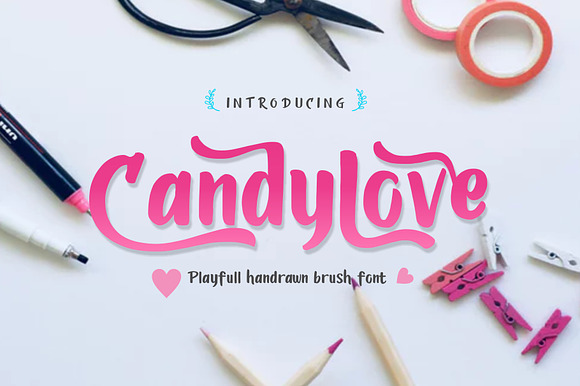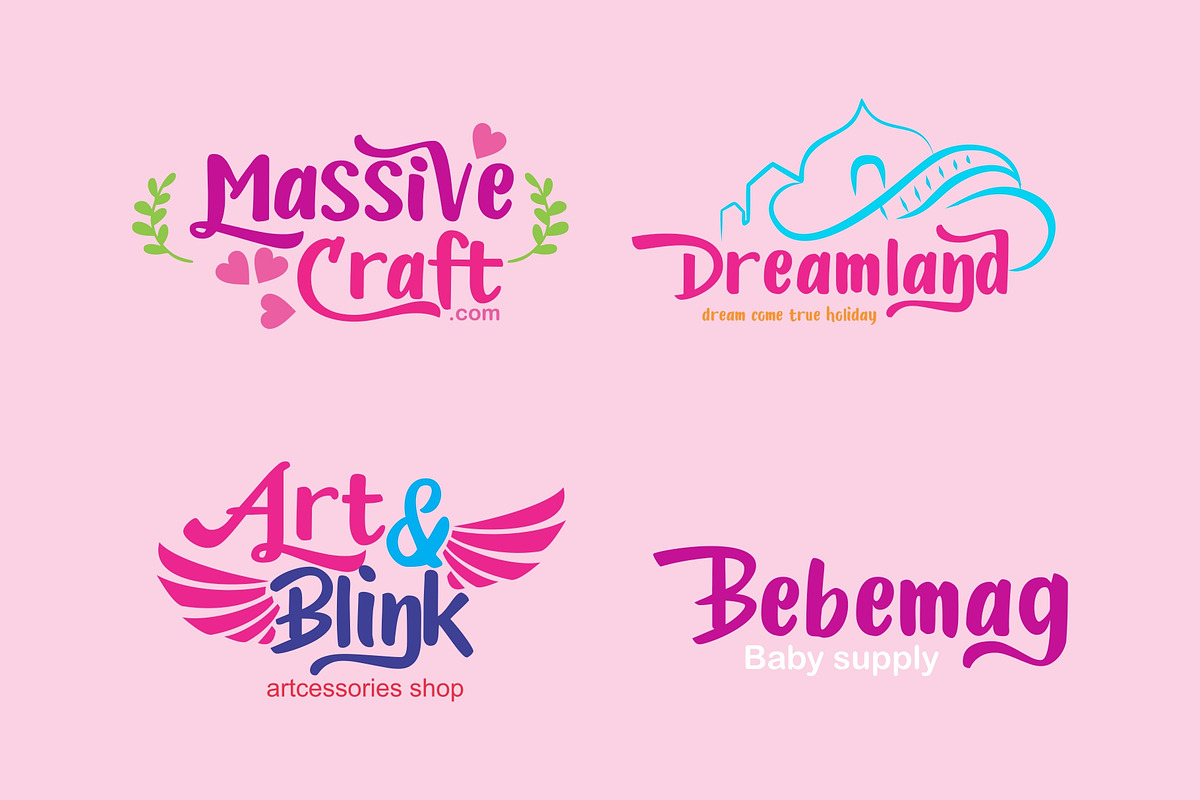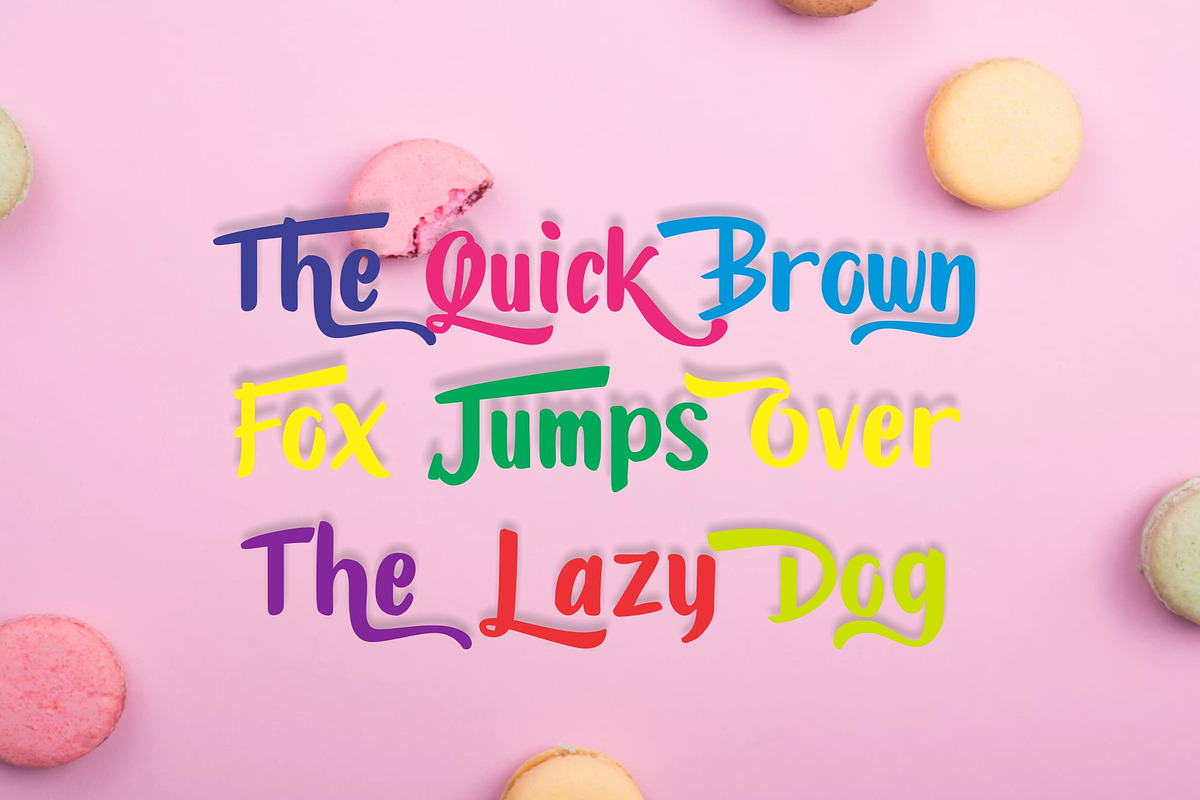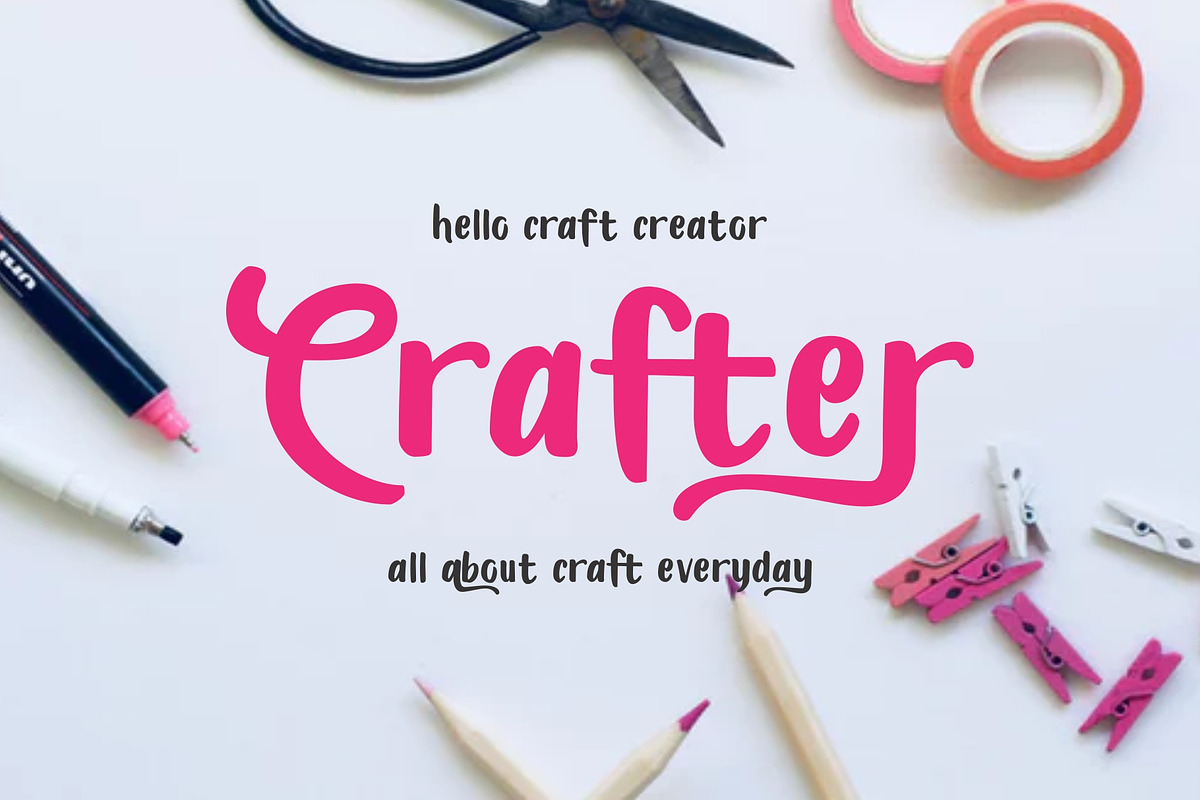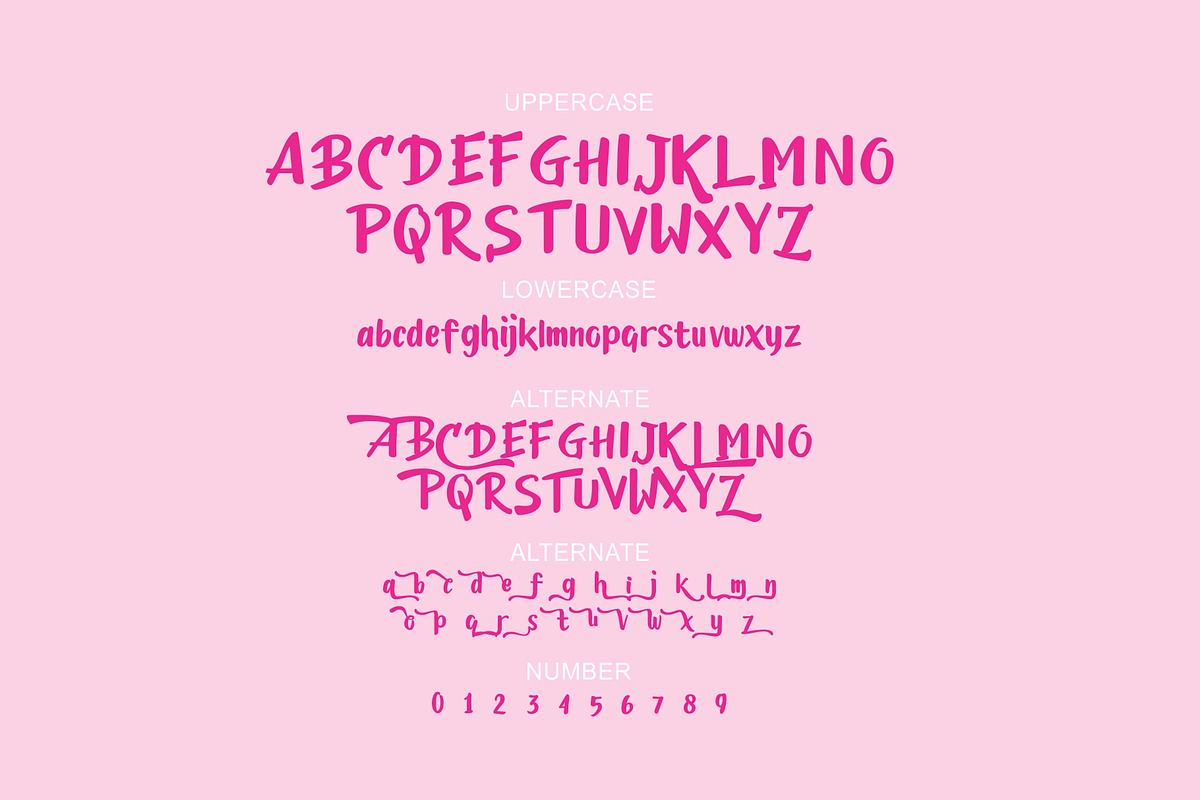
Candylove Playfull brushwritten font
Hello everyone , candylove is a handwritten font with a brush brush that has a soft character and a very playful font, applied to design with fun, childhood, relax, feminine style. This font is highly recommended for casual and childhood themed designs, shop logos, crafts, babies, or also to complement children's t-shirt designs, web blogs etc. package font contents: